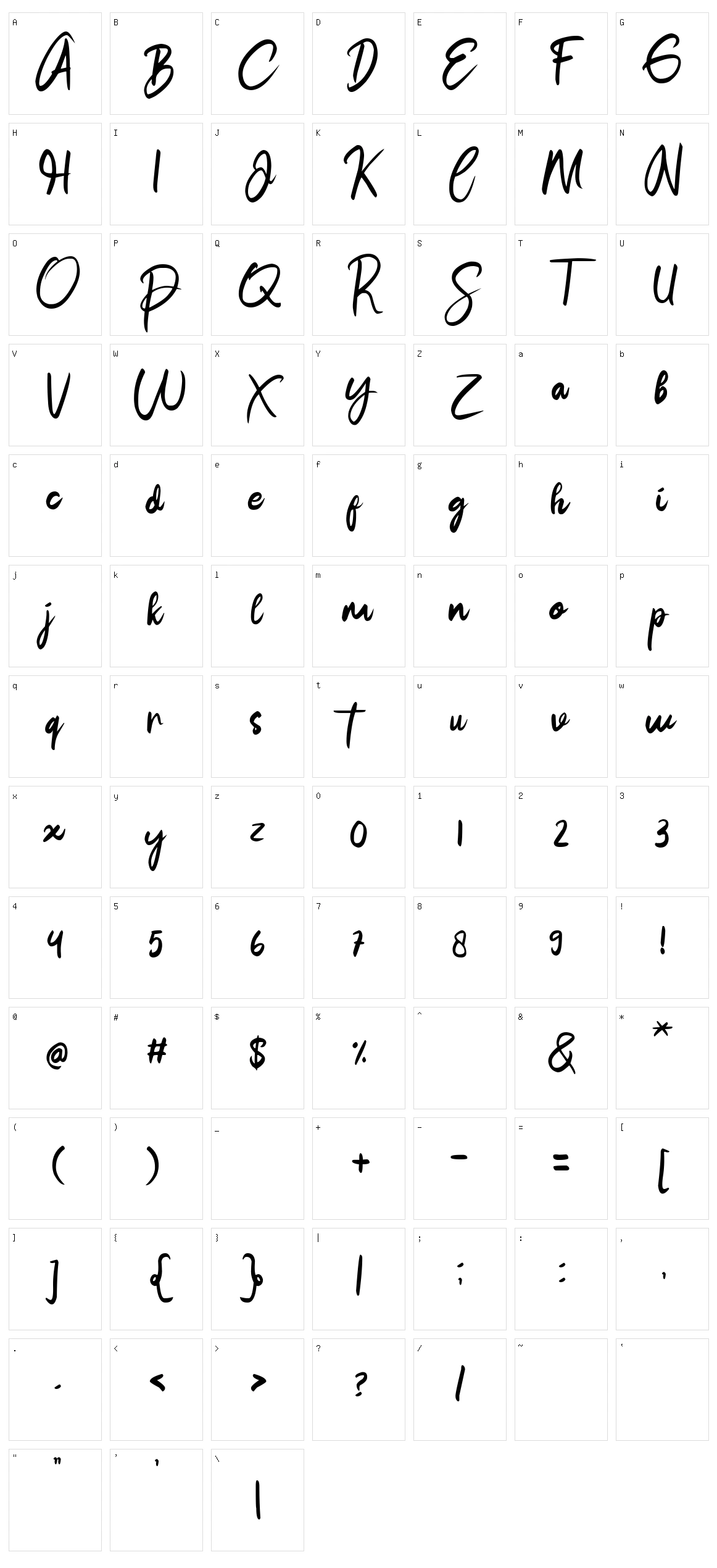
The free font Jamita is carefully designed by share font, showcasing a thoughtful balance of creativity and usability and falls under the Script font style. When you download the ZIP file, it contains only 69.47 KB of font files, making it lightweight and quick to download. Please review the license details below to understand permitted usage and distribution rights. If license information is not available, we recommend using this font for personal projects only or contacting the author directly for commercial usage permissions.